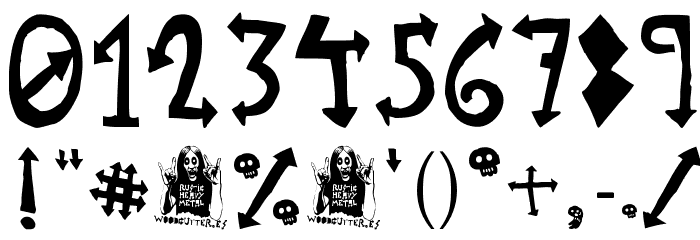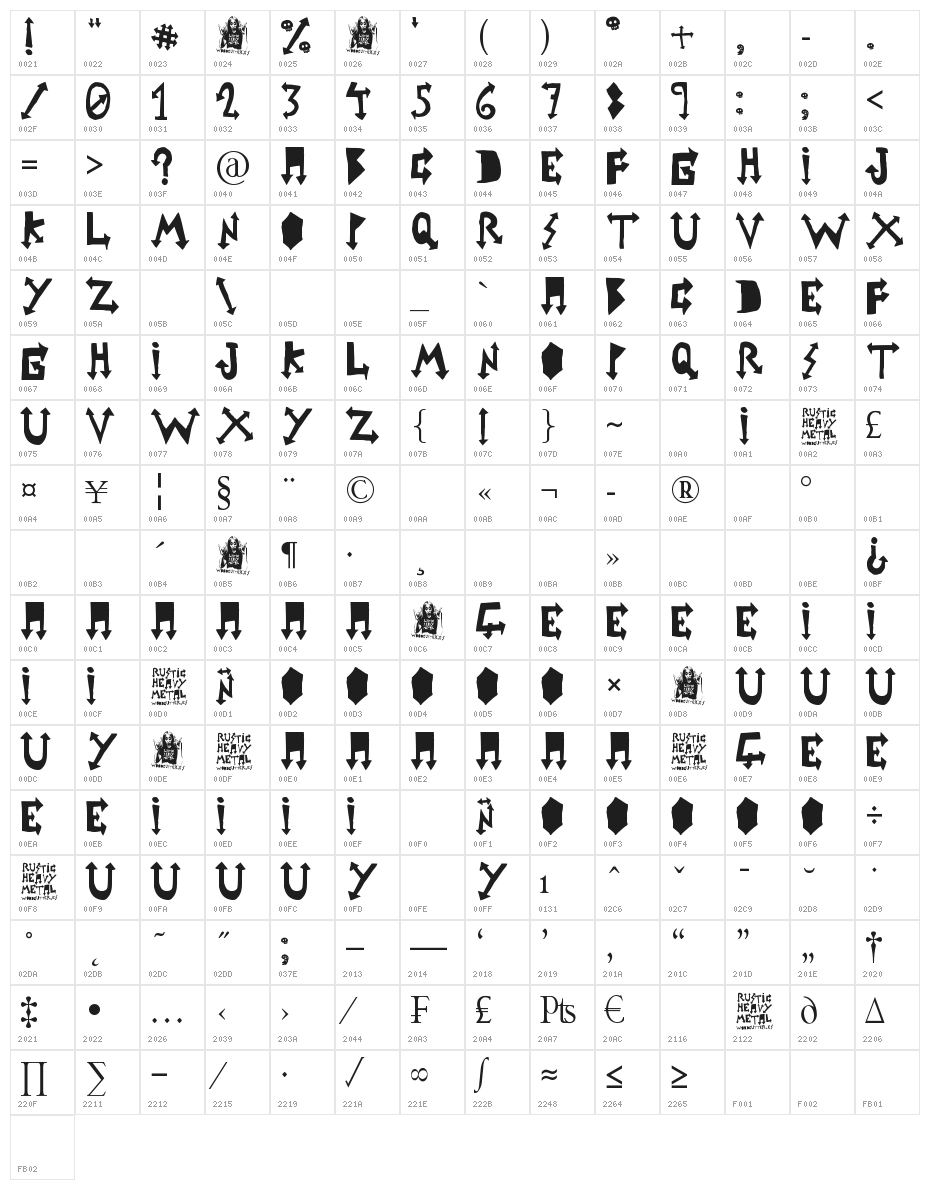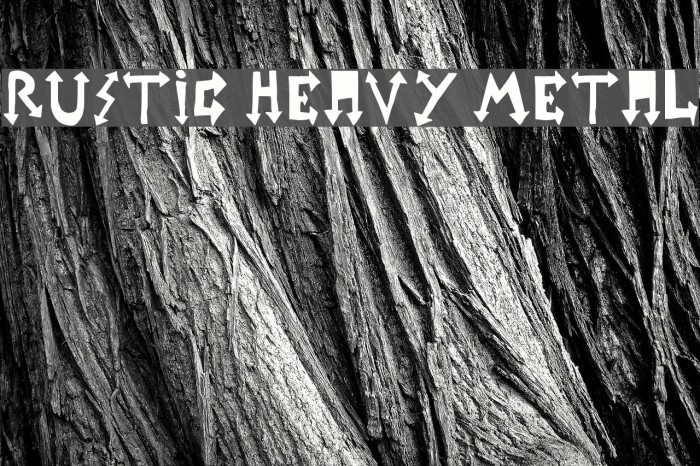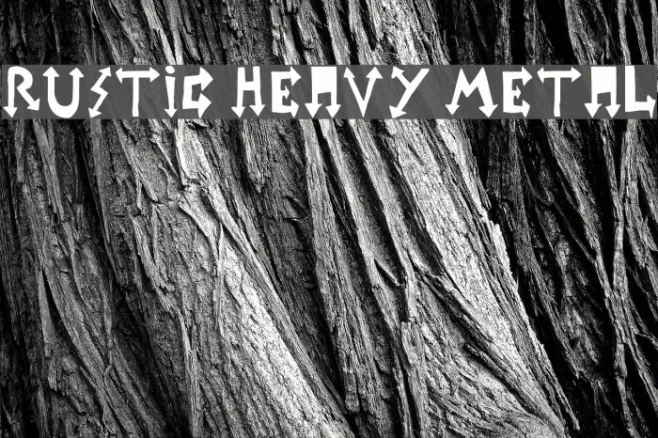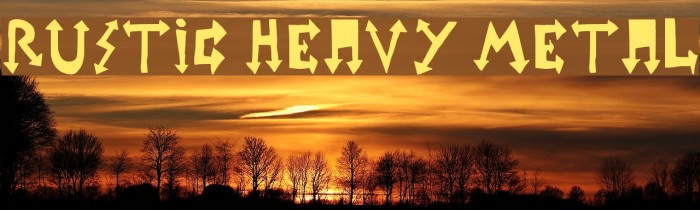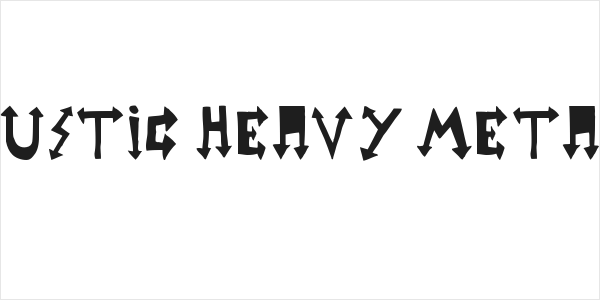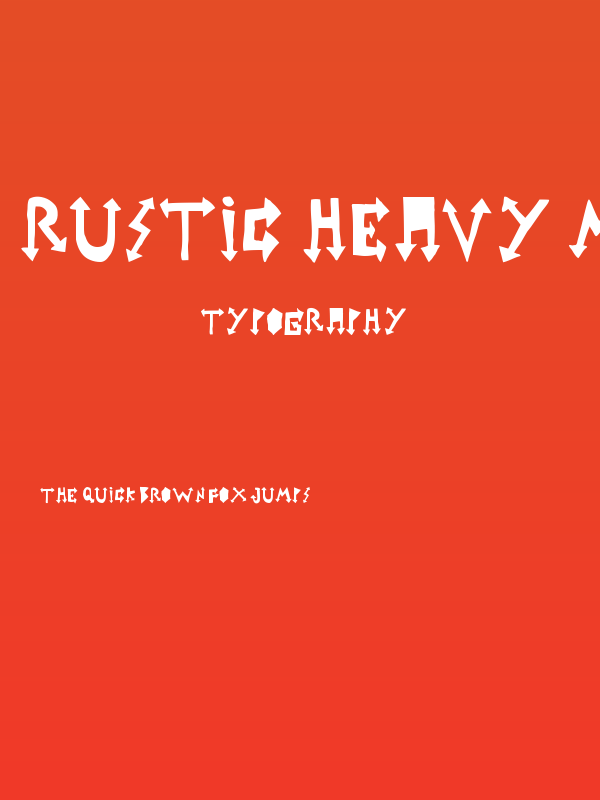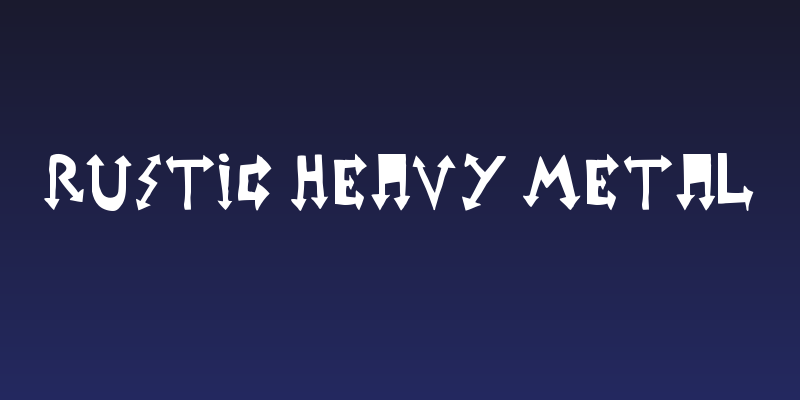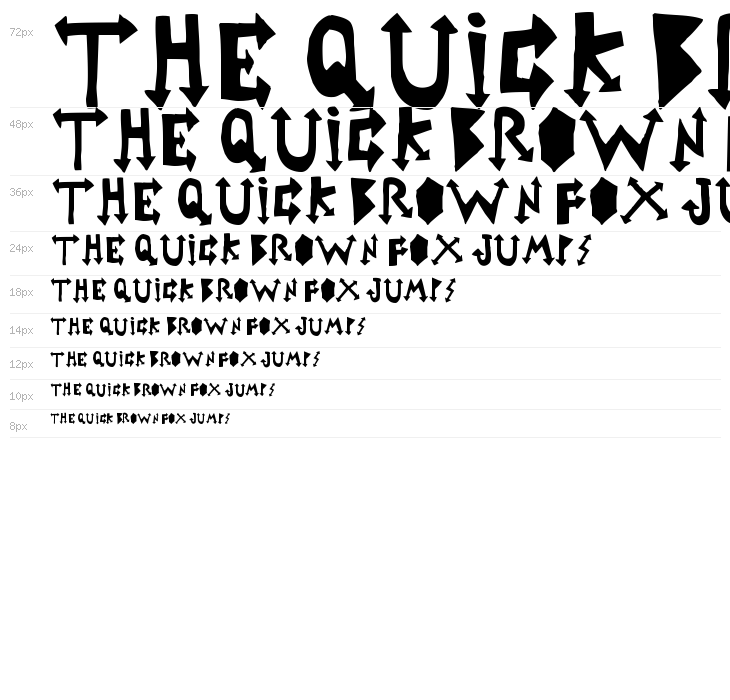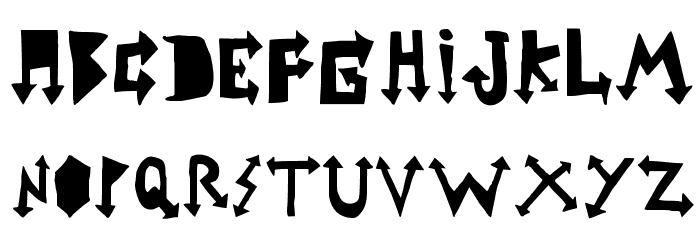
rustic heavy metal Font
rustic heavy metal Description
This font features a bold and edgy design, reminiscent of heavy metal and rock aesthetics. The characters are sharply angular with pointed edges, creating a sense of aggression and intensity. Each letter is uniquely stylized, with some incorporating arrow-like elements and others featuring jagged, irregular shapes. The numbers and special characters maintain this rugged style, adding to the overall cohesive look. This font is perfect for projects that require a strong, rebellious, and eye-catching typeface.